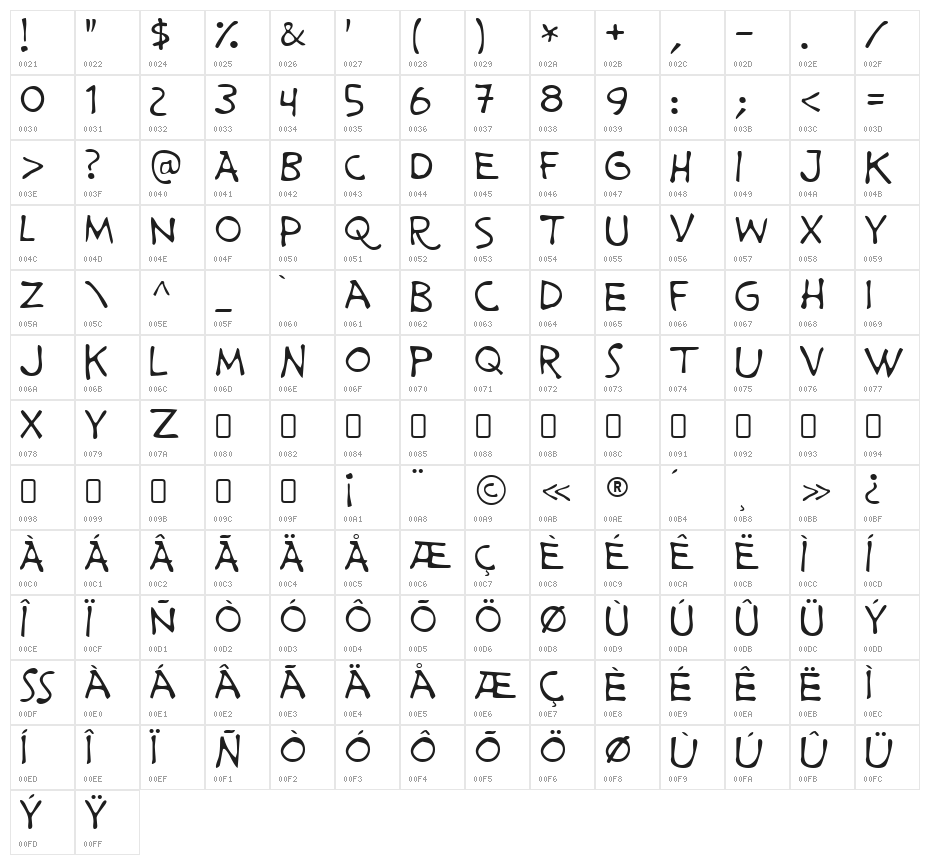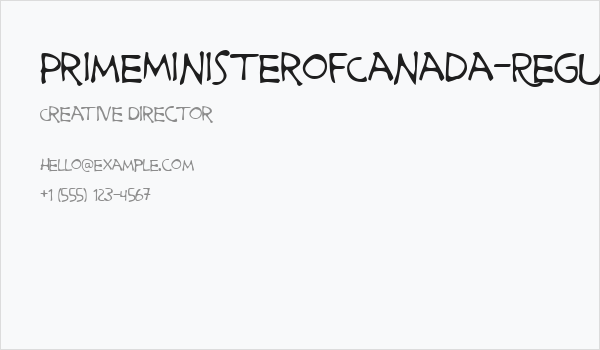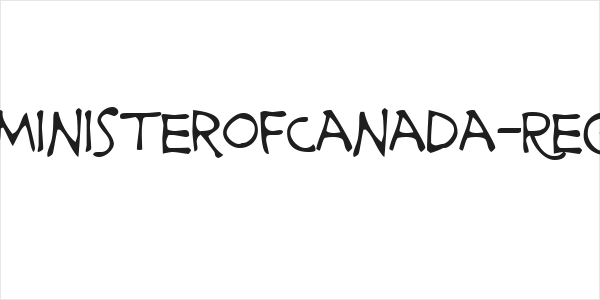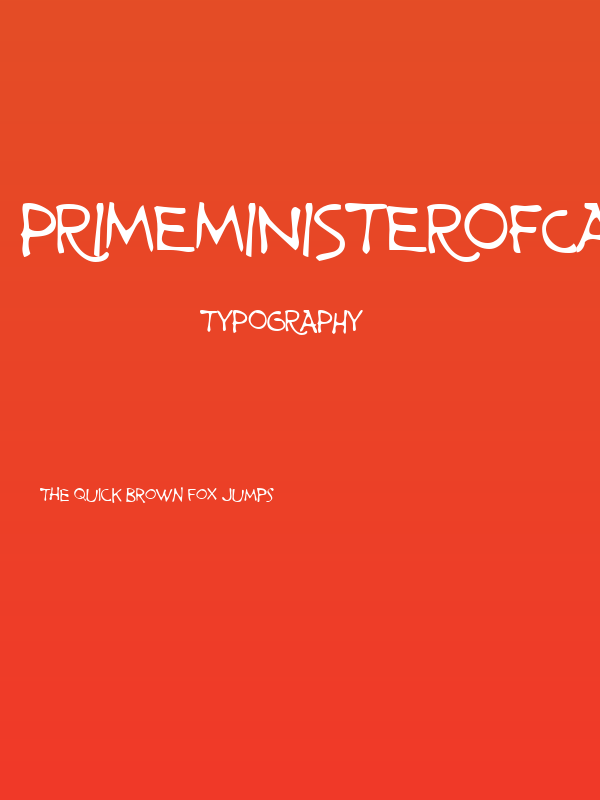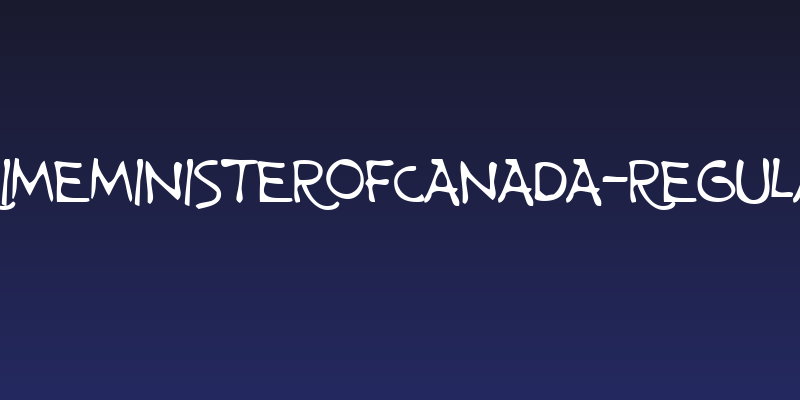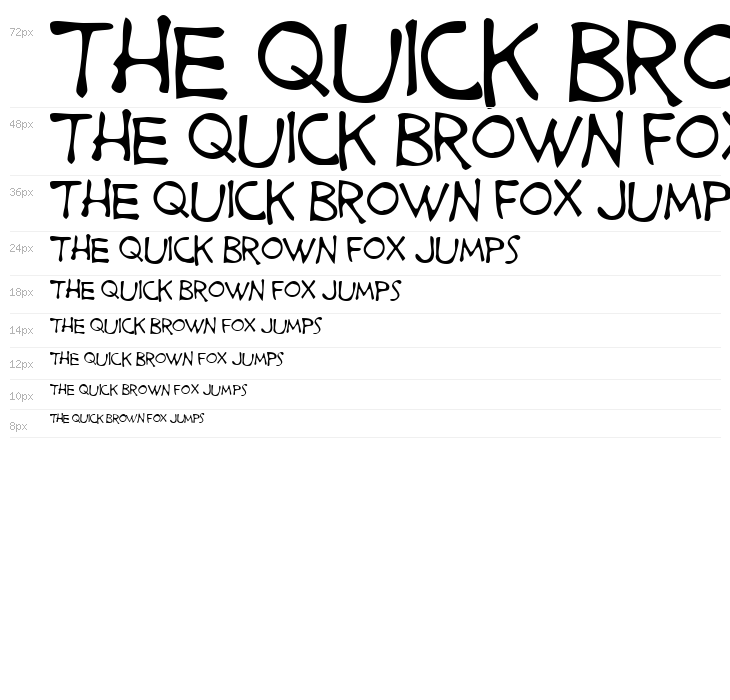
PrimeMinisterofCanada-Regular Font
PrimeMinisterofCanada-Regular Description
This font features a playful and whimsical style with a handwritten appearance. The characters are bold and slightly irregular, giving them a casual and friendly feel. The strokes vary in thickness, adding a dynamic and lively touch to the text. The uppercase and lowercase letters maintain a consistent style, while the numerals and special characters complement the overall aesthetic. This font is well-suited for projects that require a personal and approachable tone.
| Use Case | Headlines, Logos, Casual text |
| Proposed Projects | Ideal for children's books, greeting cards, playful branding, and casual invitations. |